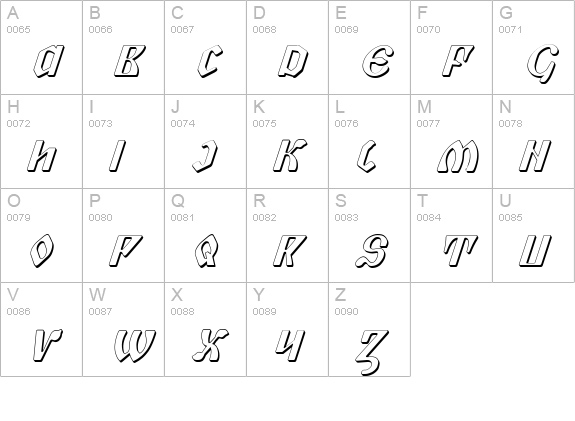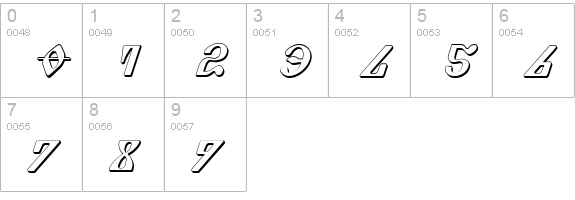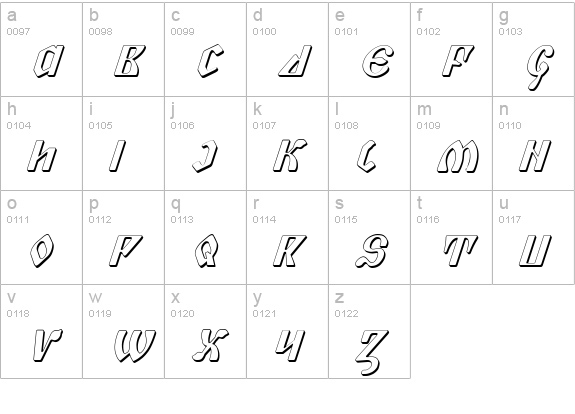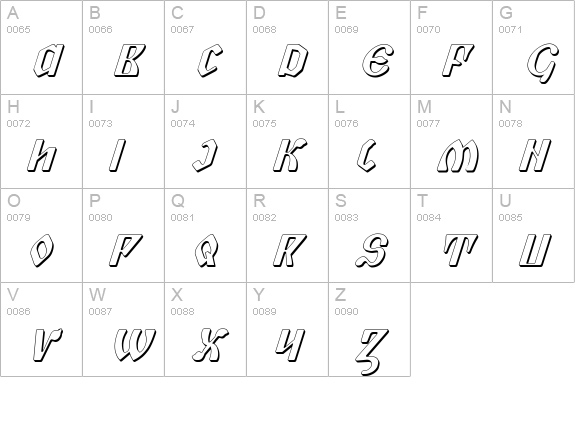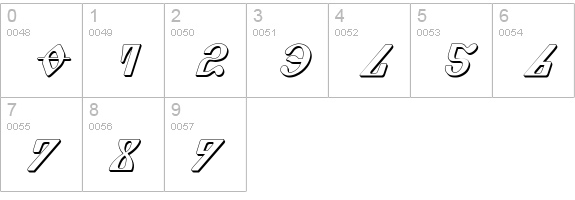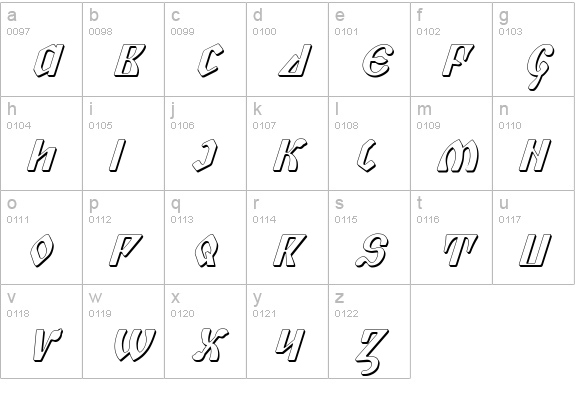
Piper Pie 3D Italic is a distinctive, italic variant in the Piper typeface family \xE2\x80\x94 well suited to design and typography projects.
Introducing Piper Pie 3D Italic font, a unique and eye-catching typeface that will add a touch of creativity to your projects. This font features a three-dimensional effect that gives it a modern and dynamic look. Its italic style adds a sense of sophistication and elegance, making it perfect for a variety of design applications. Piper Pie 3D Italic font is not only visually appealing but also versatile, making it suitable for both digital and print projects. Whether you're designing a poster, logo, website, or any other creative project, this font will make your text stand out. The best part about Piper Pie 3D Italic font is that it is completely free to download at FontsMarket.com. So go ahead and elevate your designs with this stylish and unique typeface today!